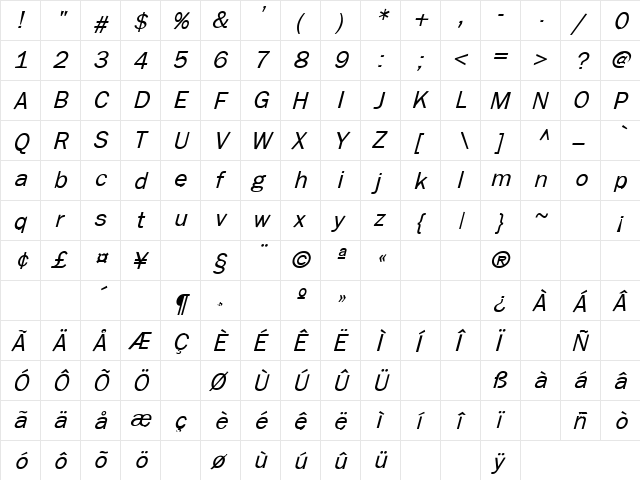
Moby Dick 16 Italic
Design Context for Moby Dick 16 Typeface
Moby Dick 16 offers clean, dependable letterforms without strong stylistic allegiance, making it a practical choice for designers who need flexibility. The dynamic lean of this cut emphasises speed and emphasis in any layout.
Pro Tip: Try Moby Dick 16 for annotation and caption copy alongside an upright companion — the contrast in angle creates a dynamic but ordered typographic system.